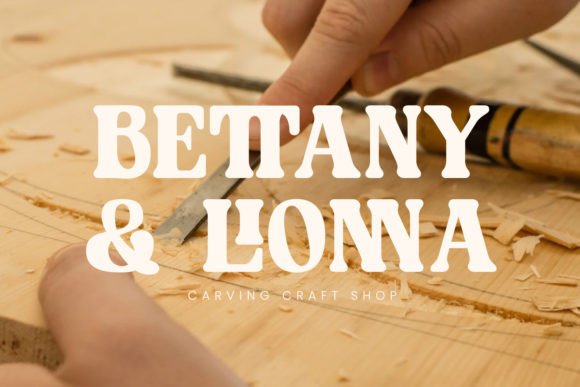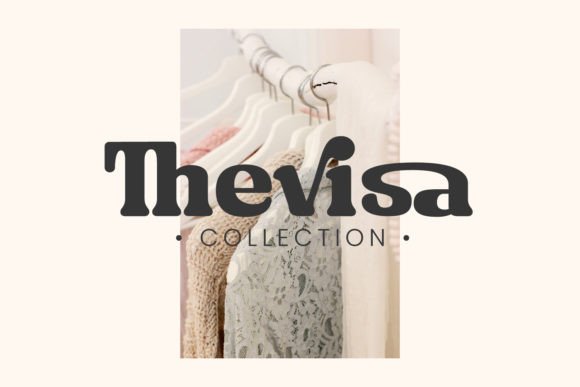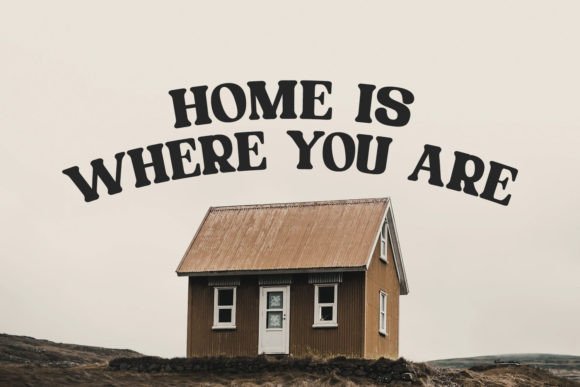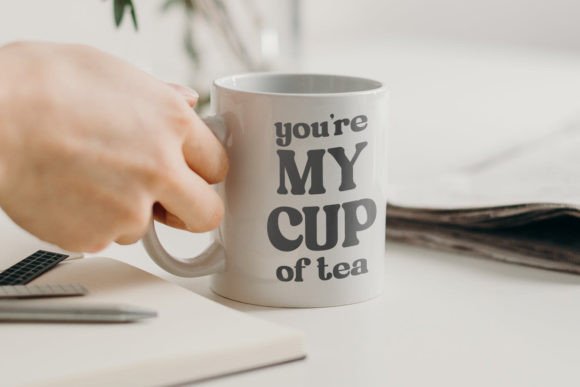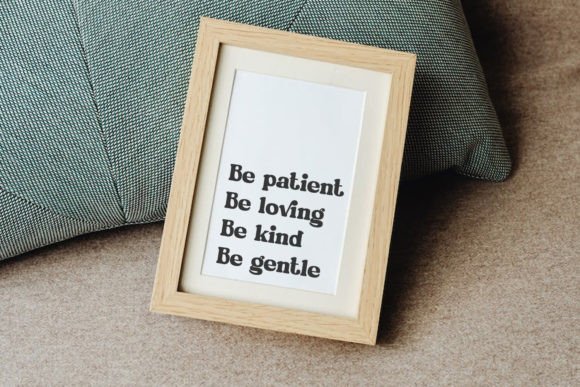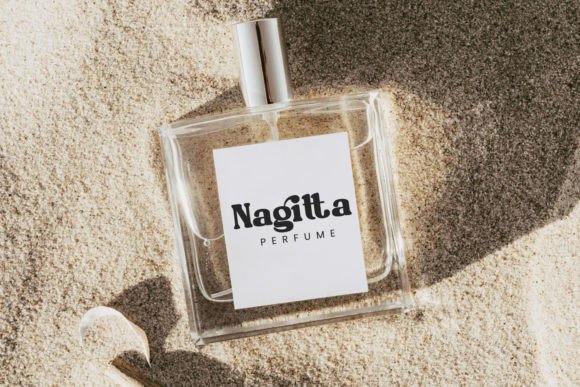
Introduction to Retro Lagoon Font
Retro Lagoon is a captivating serif font that channels the essence of bygone eras with a contemporary twist.
With its bold weight and modern styling, this font captures the nostalgia of retro design while maintaining a fresh and dynamic appeal Crafted with meticulous attention to detail, Retro Lagoon is made with bold and striking letterforms that command attention on the page.